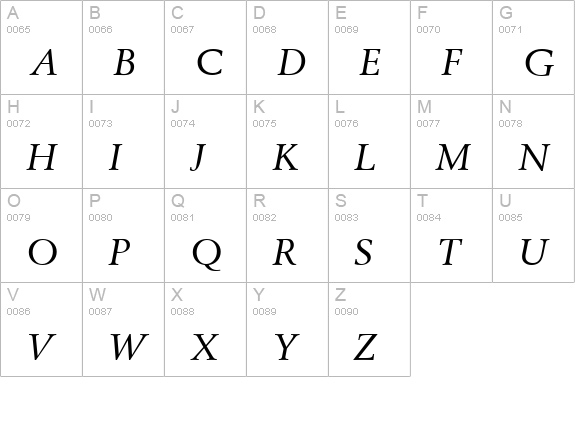
Berling Antiqua Italic Font Details
Berling Antiqua Italic is a distinctive, italic variant in the Berling typeface family \xE2\x80\x94 well suited to design and typography projects.
The Berling Antiqua Italic font exudes elegance and sophistication with its graceful slanted design. Its delicate and flowing strokes add a touch of refinement to any project, making it ideal for conveying a sense of classic beauty and timeless charm. The italicized form of the Berling Antiqua typeface offers a unique twist on traditional typography, making it a versatile choice for various design applications. Whether used for formal invitations, editorial layouts, or branding materials, this font effortlessly captures attention and leaves a lasting impression. Best of all, Berling Antiqua Italic is available for free download at FontsMarket.com, making it easily accessible for designers and creatives looking to elevate their projects with a touch of sophistication. Don't miss out on the opportunity to add this exquisite font to your collection and enhance your designs with its timeless appeal.